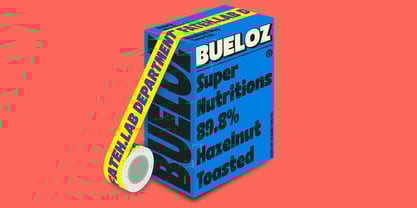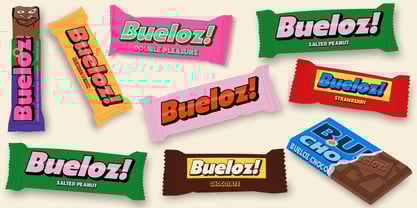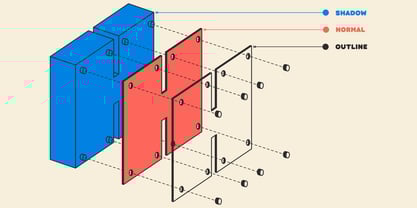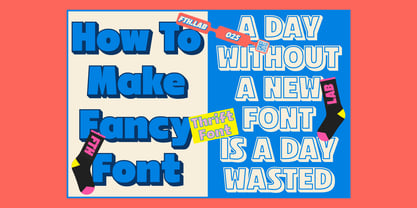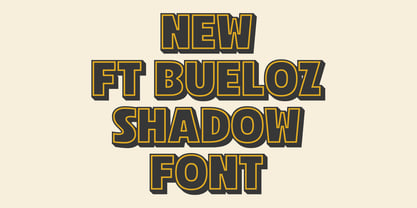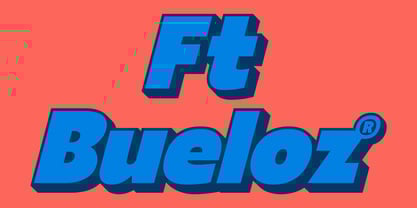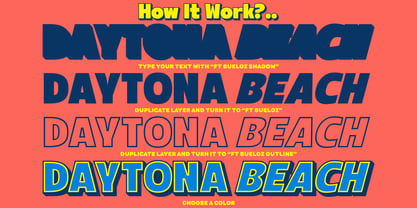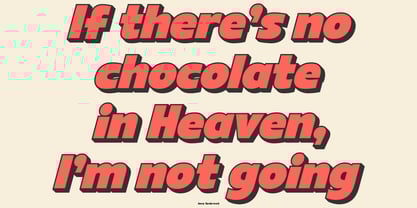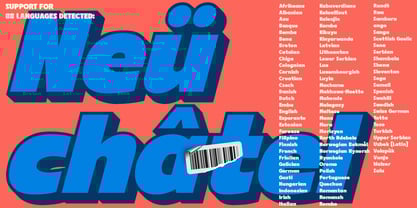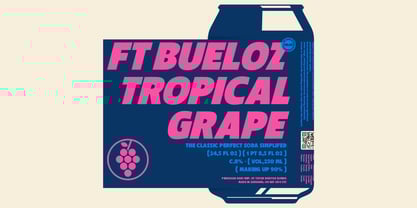
Ft Bueloz Outline
by Fateh.Lab
The Ft Bueloz Outline Font Family was designed by Wisnu Cipto Wibowo and published by Fateh.Lab. Ft Bueloz Outline contains 6 styles and family package options. More about this family
Ft. Bueloz is the latest work released by Fateh Lab! This is a shadow font, and it marks the beginning of a shift in current design trends.
With a soft yet bold typography style, Ft. Bueloz has all the elements of life in today’s design world. This is the perfect answer for those of you who are creating something great.
This font has a superior weight in posters, social media, headlines, magazine headlines, packaging, and large print formats—and anywhere else you want to see it.